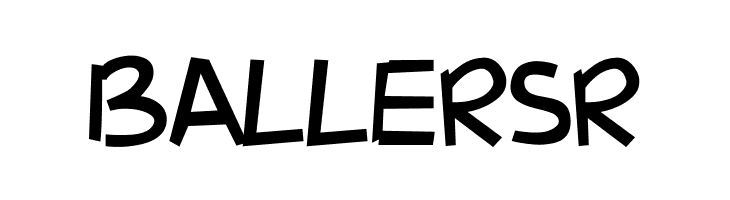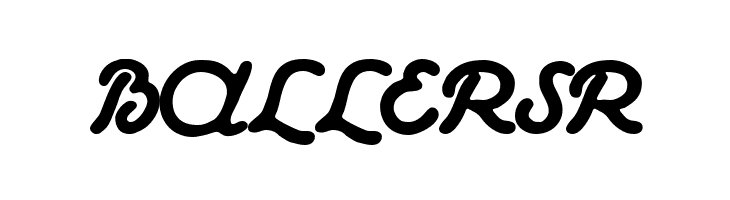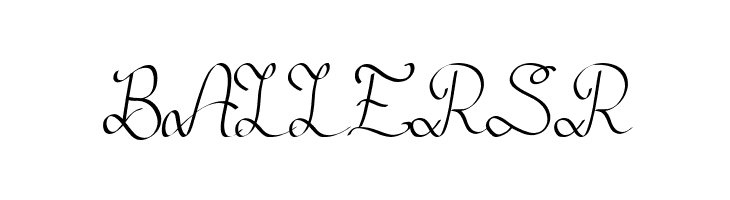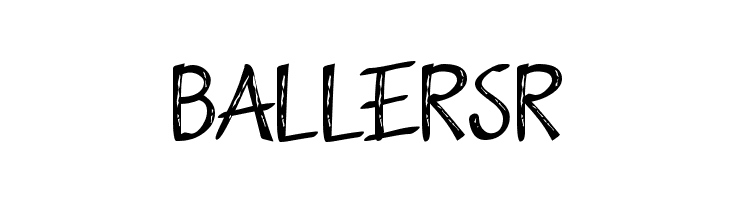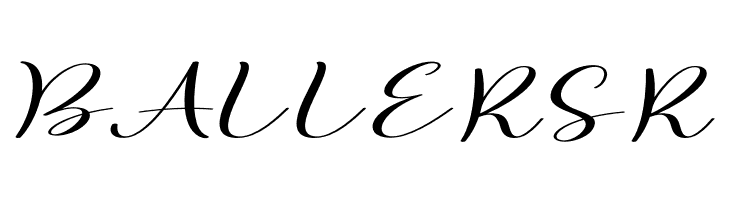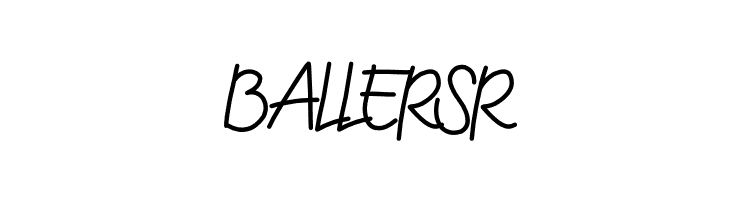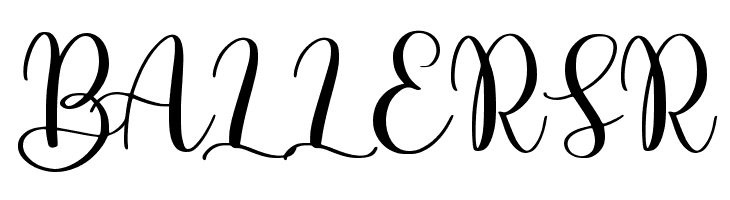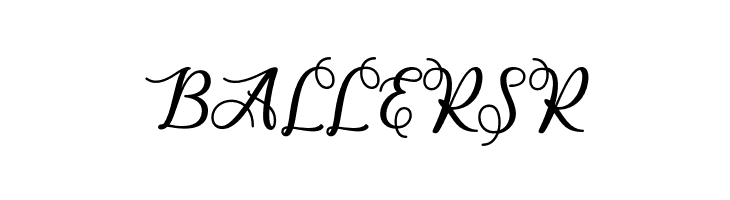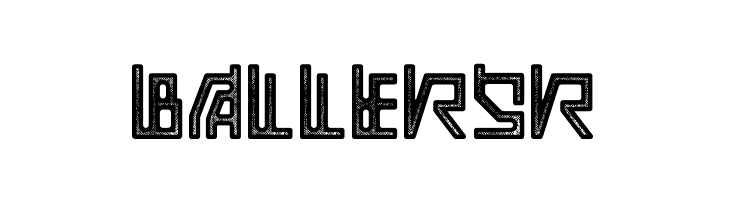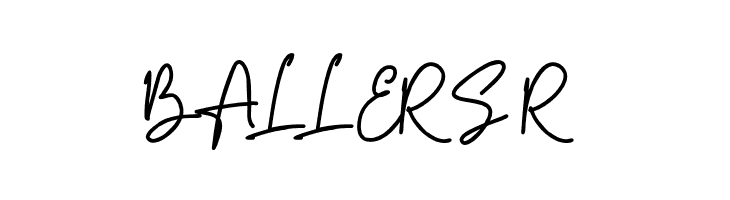
A playful, bold font with rounded, bubbly characters.
An elegant, flowing script font with smooth, cursive strokes.
A playful, hand-drawn font with bold, rounded characters and a whimsical style.
An elegant script font with flowing, cursive style and intricate flourishes.
An elegant script font with flowing cursive style and intricate flourishes.
An elegant script font with flowing, cursive style and sophisticated flair.
An elegant script font with intricate loops and decorative flourishes.
An elegant, flowing script font with decorative flourishes.
A lively handwritten font with fluid strokes and a casual script style.
An elegant and flowing script font with graceful loops and cursive strokes.
A playful and elegant script font with flowing, interconnected letters.
A bold, geometric font with a grunge texture and industrial style.
A whimsical, hand-drawn font with decorative curls and playful style.
A bold, handwritten-style font with a playful and dynamic appearance.
A bold, handwritten-style font with playful curves and thick strokes.
A dynamic and elegant script font with bold, flowing letterforms.
A dynamic, cursive font with elegant, sweeping strokes and a modern calligraphic style.
A bold, expressive handwritten font with brush-like strokes.
A bold, handwritten font with a dynamic and playful style.
A graceful and elegant script font with flowing, interconnected letters.
An elegant script font with flowing, interconnected cursive letterforms.
A modern, elegant script font with a flowing, handwritten style.
A bold, expressive script font with a hand-drawn, cursive style.
A bold, hand-painted style font with dynamic, slanted characters.
A bold, expressive script font with ornate swashes and flowing cursive letterforms.
A lively, handwritten font with fluid strokes and a dynamic style.
A dynamic and fluid handwritten font with elegant cursive letterforms.
A chaotic and expressive handwritten font with erratic strokes.
A lively handwritten font with fluid strokes and playful character.
A bold, playful script font with interconnected, rounded characters.
A bold, cursive font with a playful and flowing style.
A dynamic and expressive handwritten font with fluid strokes.
An elegant script font with flowing, cursive strokes and intricate loops.